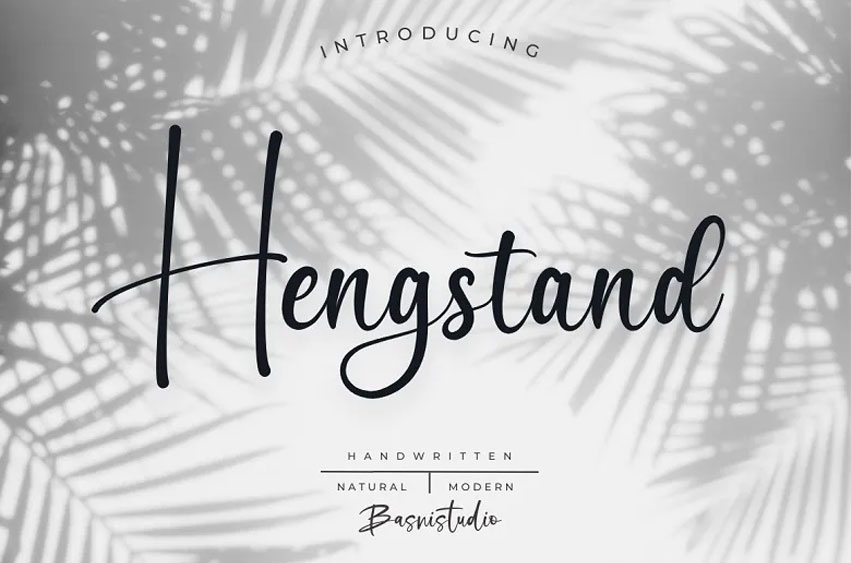
Hengstand Font is a handwritten script font that is drawn with Naturaly & precision for branding, websites, and editorial designs.
It covers all the Characters letters and multilingual support of any kind, abbreviations, punctuation, and binding. All the mentioned aspects can be easily managed with the help of software that uses OpenType.